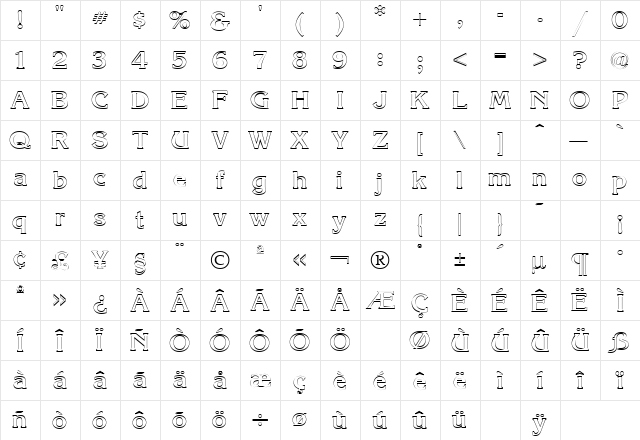
Korinna Outline Regular
Design Context for Korinna Outline Typeface
Korinna Outline brings ornamental detail and strong personality to headlines and identities, where visual impact matters more than quiet functionality.
Font Pairing: Pair with a clean neutral sans-serif for body copy to let Korinna Outline's character lead without overwhelming the composition.
Pro Tip: Treat Korinna Outline as the centrepiece of your typographic hierarchy. One strong heading set in a decorative face can carry an entire layout.